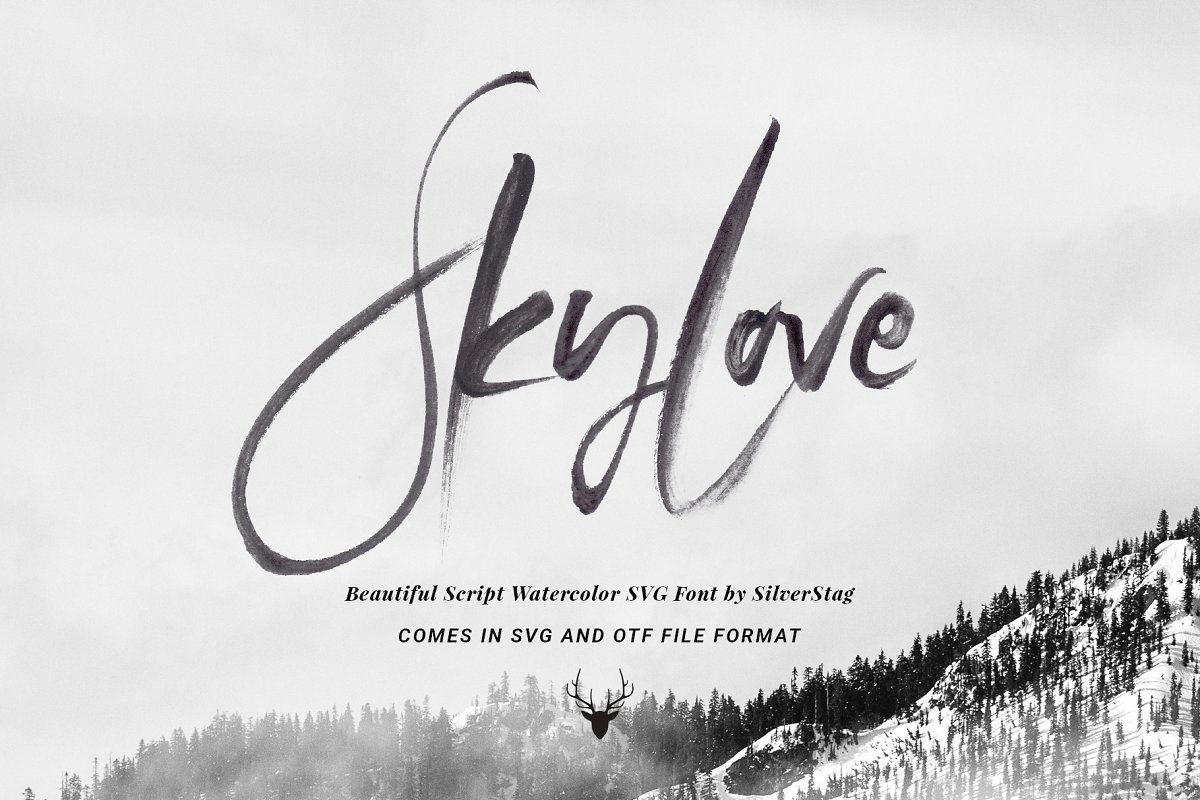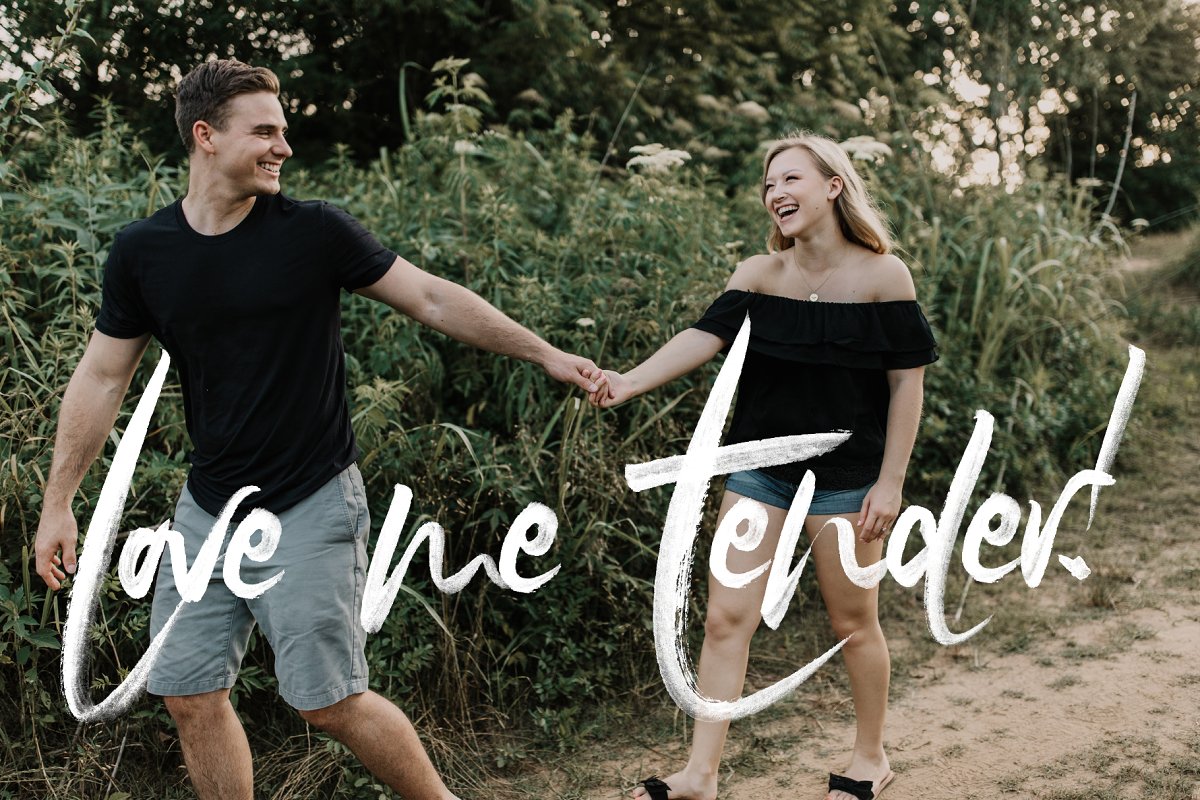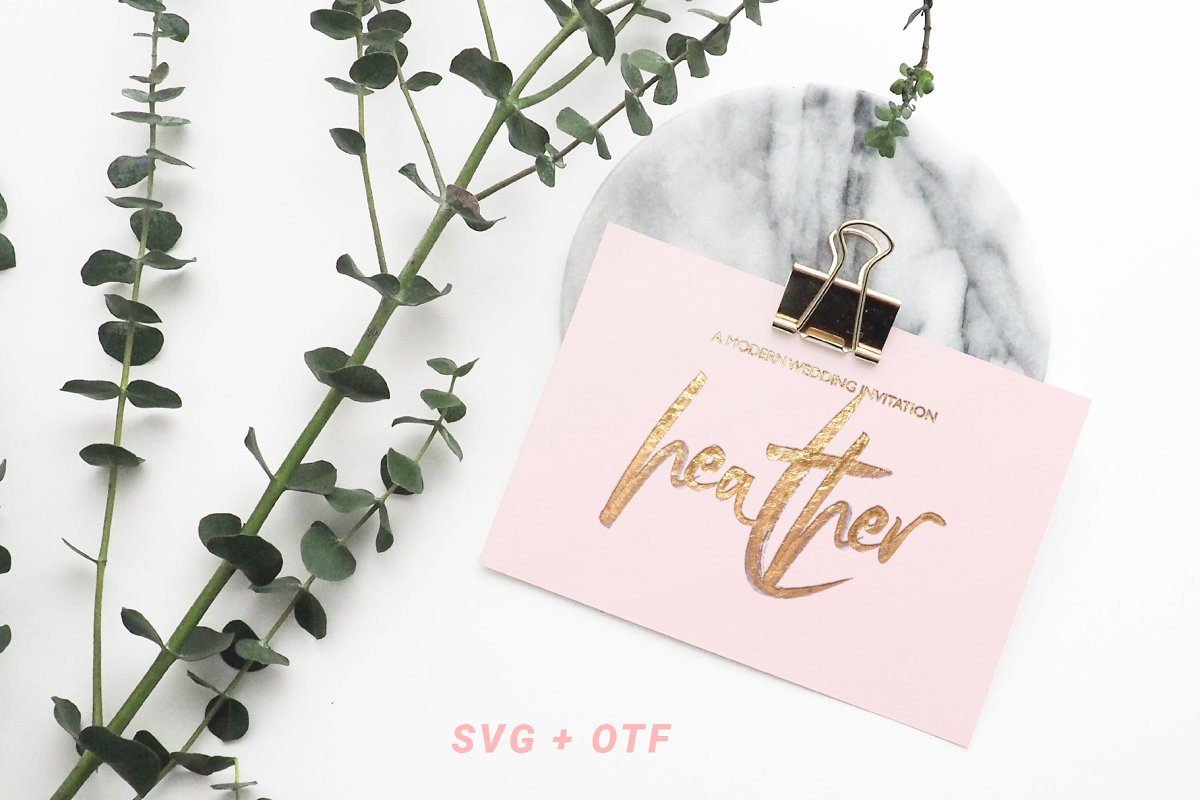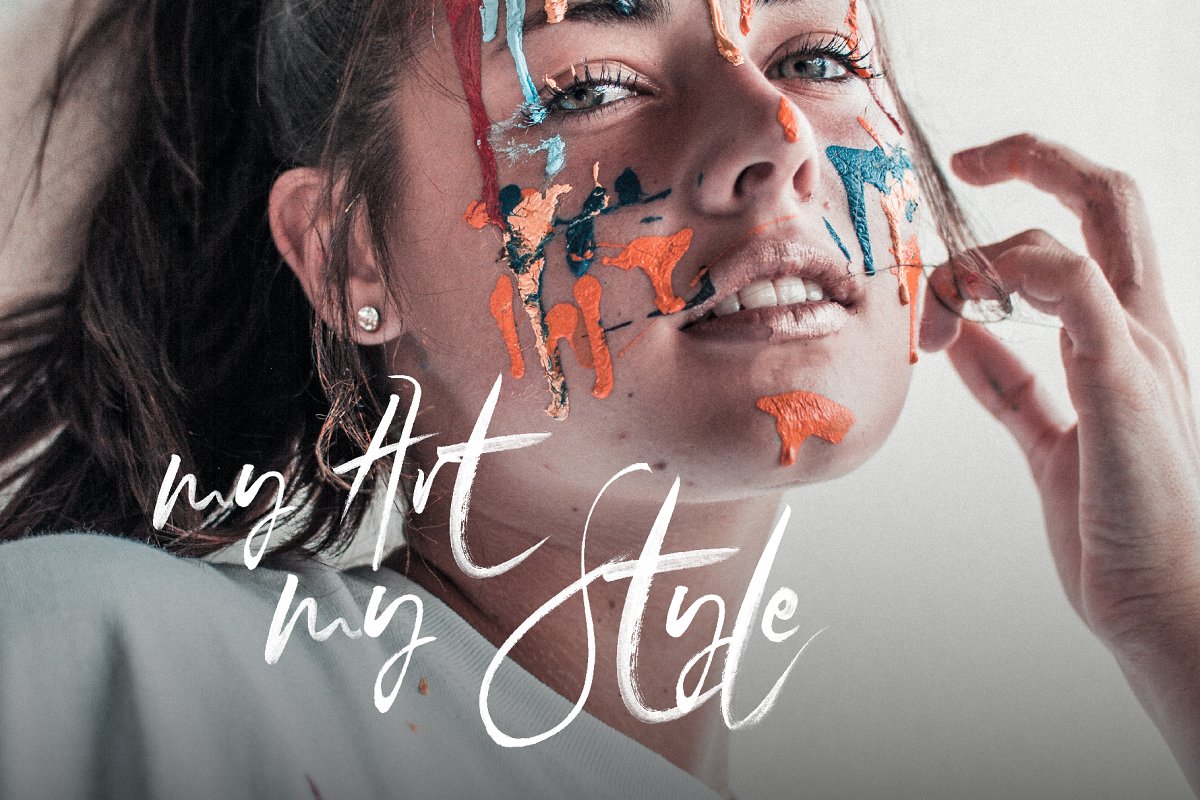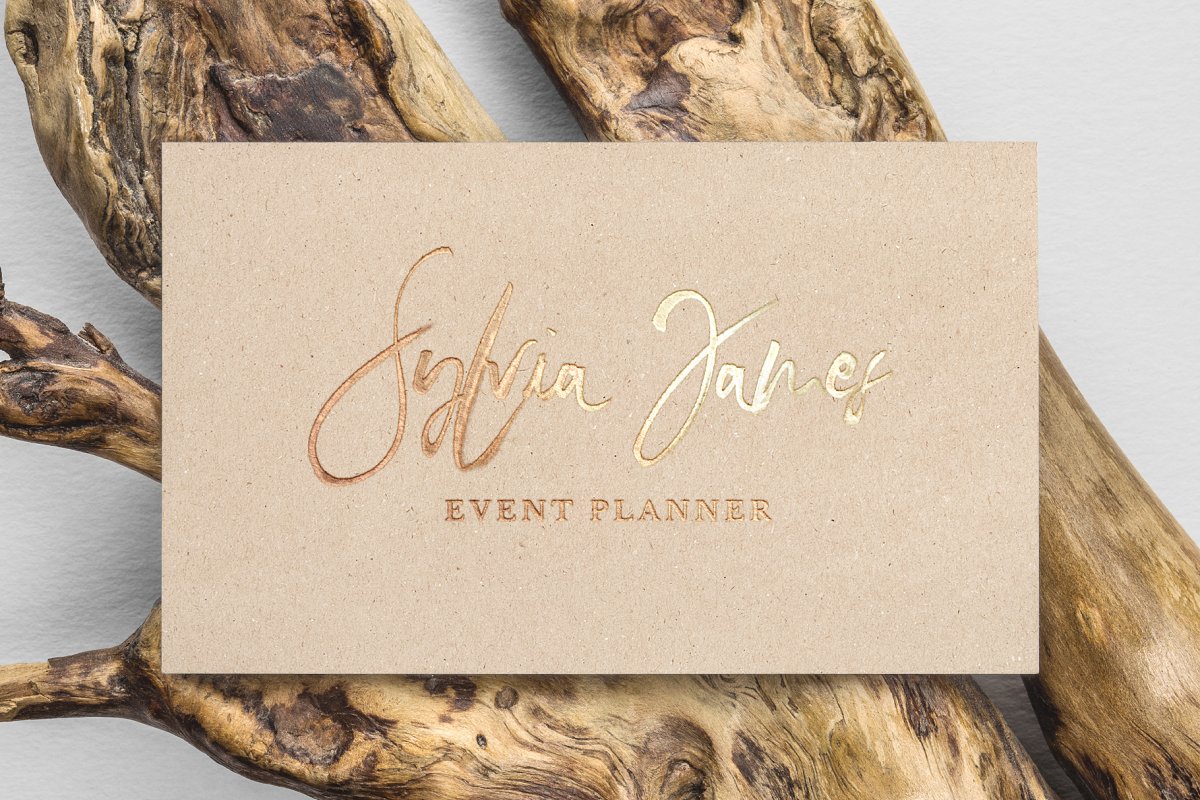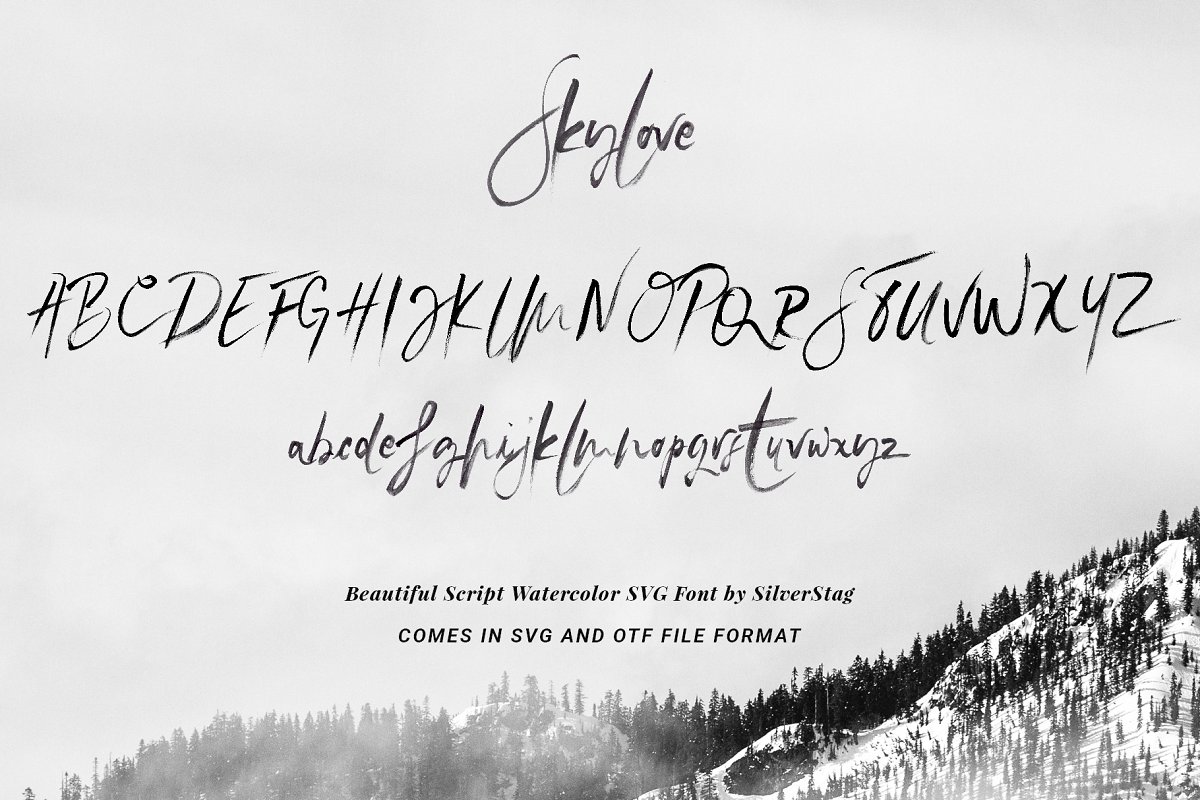
About the SkyLove SVG Watercolor Font
SkyLove is a watercolor SVG font that has a true hand drawn look and feel, SkyLove Watercolor font requires Photoshop CC 2017 or Illustrator CC 2018 (or newer) to use, however OTF SkyLove Script doesn’t require any specific software and can be used on any computer and in any software, Illustrator CC 2017, Photoshop CC 2015 and older versions DO NOT support color fonts